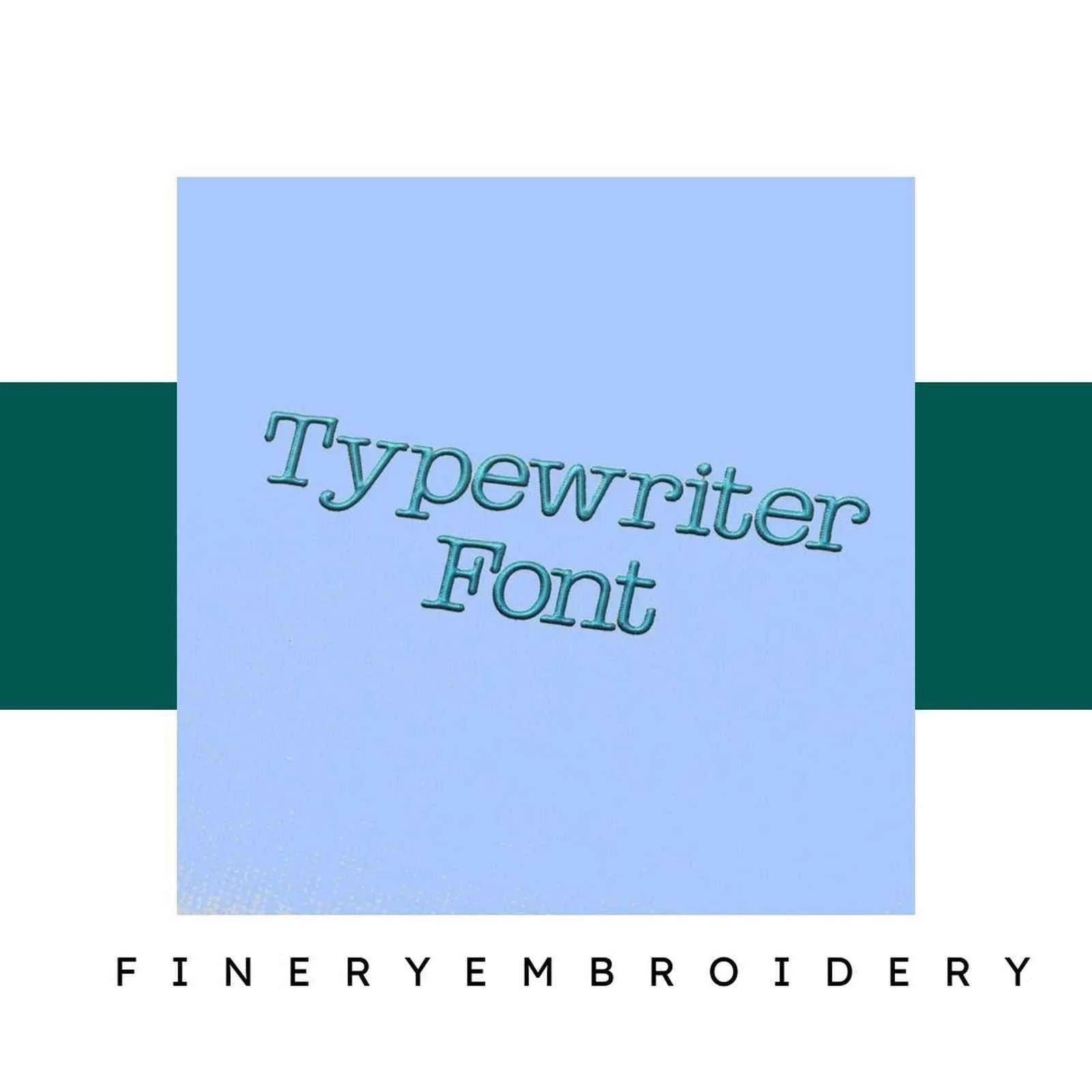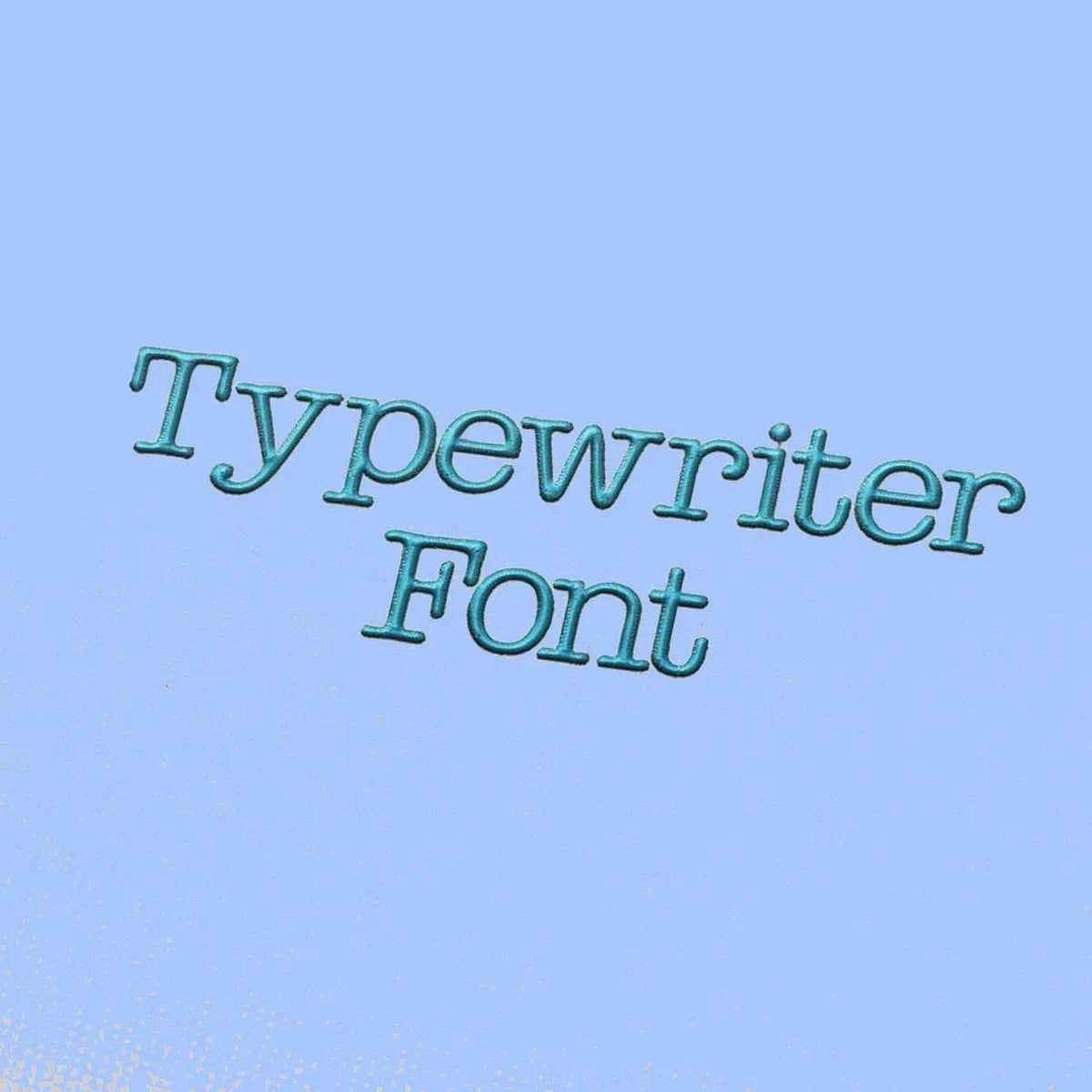
Typewriter Embroidery alphabet Font Set
Transform Your Embroidery Projects with the Timeless Charm of Our Typewriter Embroidery Font Set!
Welcome to a world where creativity knows no bounds! Our Typewriter Embroidery Alphabet Font Set is designed for those who appreciate the beauty of classic typography. Each letter in this set has been thoughtfully crafted to enhance your embroidery projects, making every creation feel special and unique.
Why You'll Love This Design
The Typewriter Embroidery Font Set brings an elegant touch to your creations, making it an ideal choice for personalized gifts or special occasions. The vintage typewriter style adds a nostalgic flair that resonates with both traditional and modern aesthetics. You’ll find that each character flows seamlessly, allowing you to express your creativity in delightful ways.
Creative Applications
Imagine crafting unique monograms, custom apparel, or heartfelt gifts using this versatile font set. Whether you're embellishing tote bags, home decor, or clothing items, the Typewriter Embroidery Alphabet Font Set allows you to elevate your designs effortlessly. It’s perfect for anyone looking to add a whimsical yet sophisticated touch to their work.
Digitized for Passionate Embroiderers